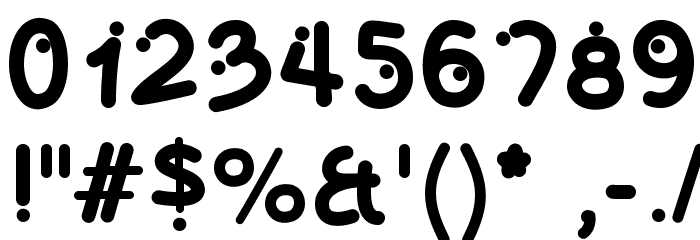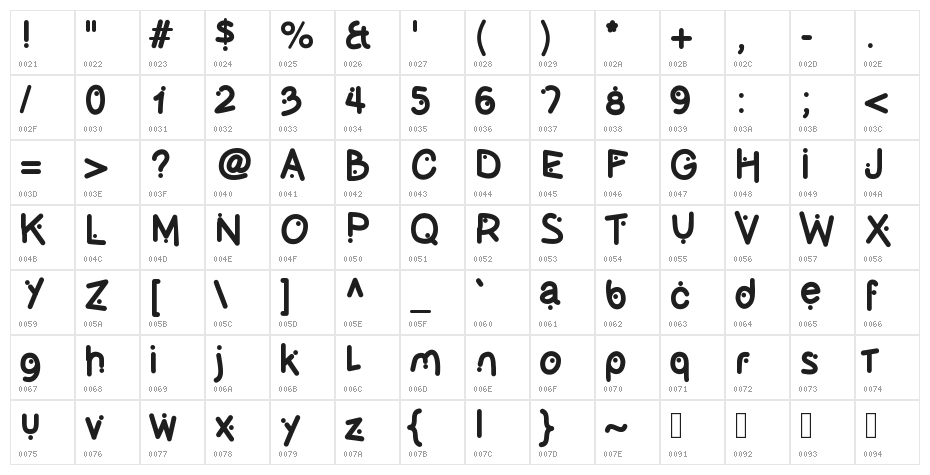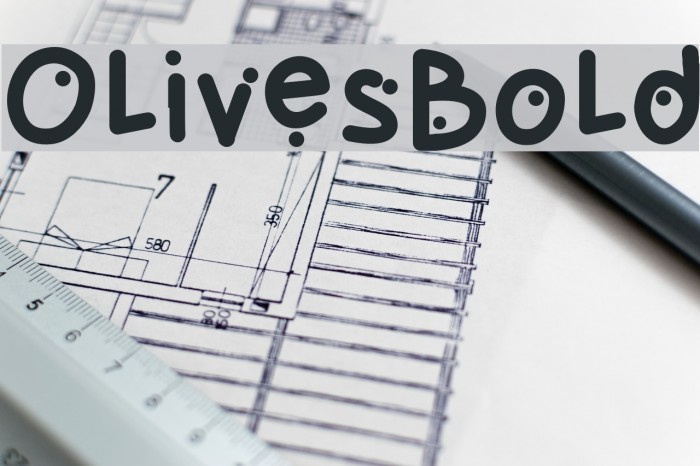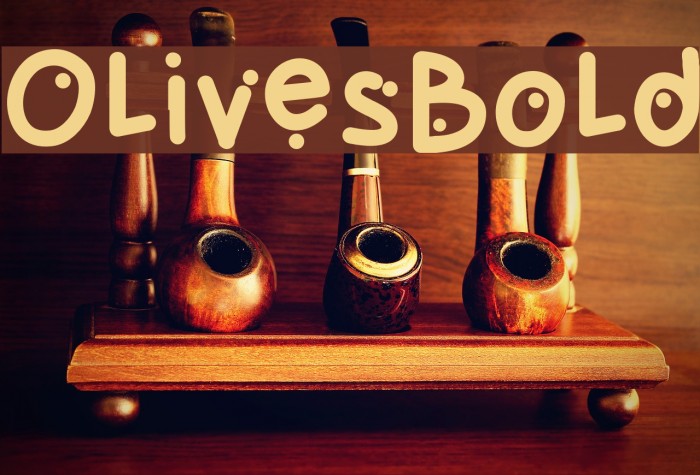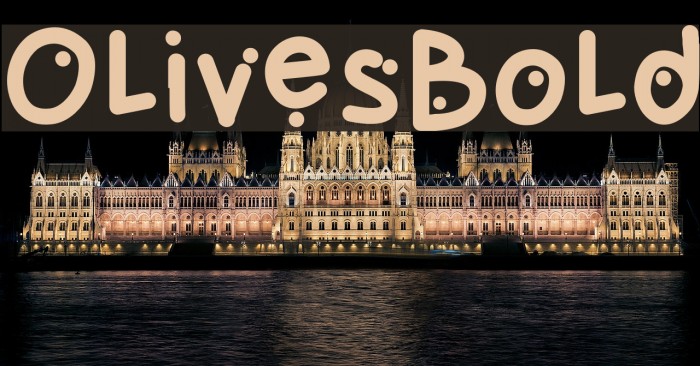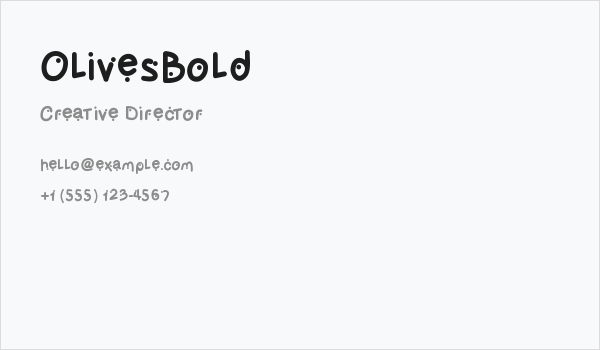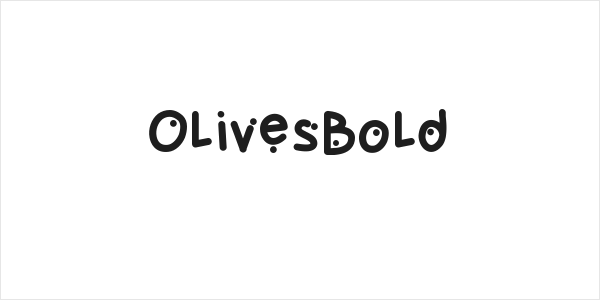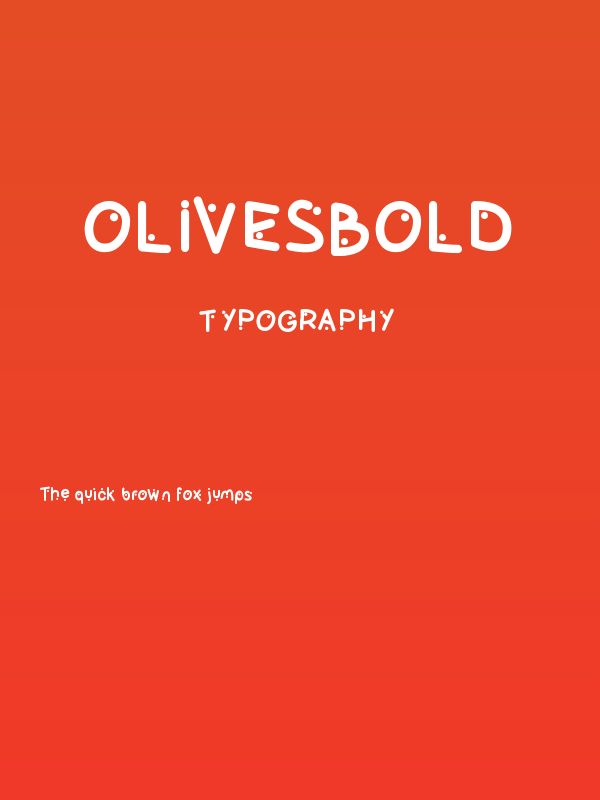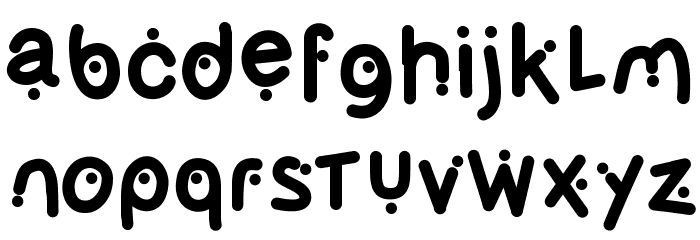
OlivesBold Font
OlivesBold Description
This playful and bold font features rounded, bubbly characters with a unique dot detail that adds a whimsical touch. The letters are thick and uniform, with a consistent stroke width that gives it a strong presence. The font's playful nature is emphasized by its rounded edges and the distinctive dot embellishments, making it stand out in any design. The numbers and special characters maintain the same style, ensuring a cohesive look across all text elements. This font is perfect for projects that require a fun and engaging aesthetic.